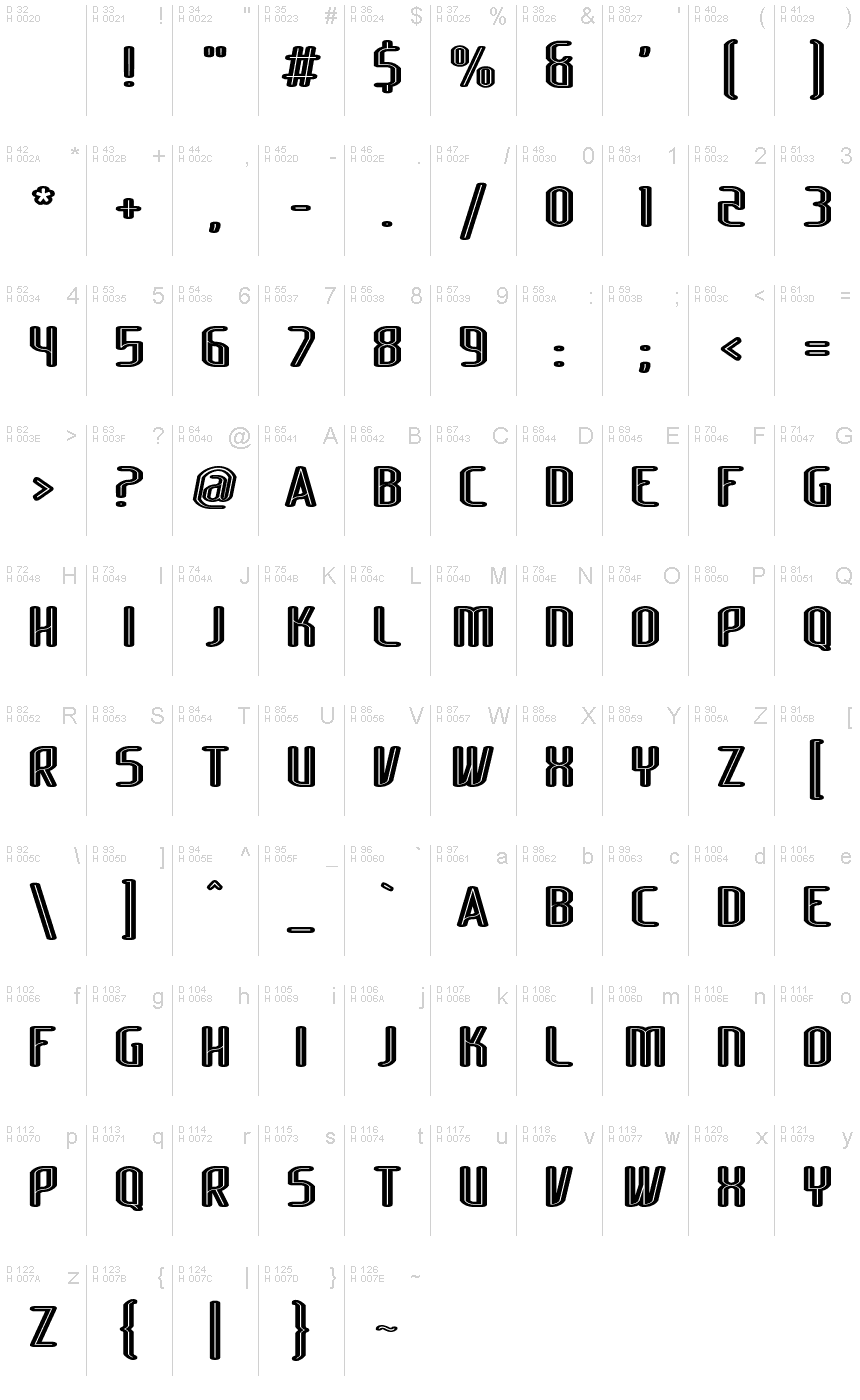
Lakisa is a gorgeous sans serif with a modern and futuristic feel! With its neat and balanced arrangement of letters, this typeface will look outstanding in both formal and non-formal designs.
Lakisa Rounded Stencil
Audry Kitoko Makelele